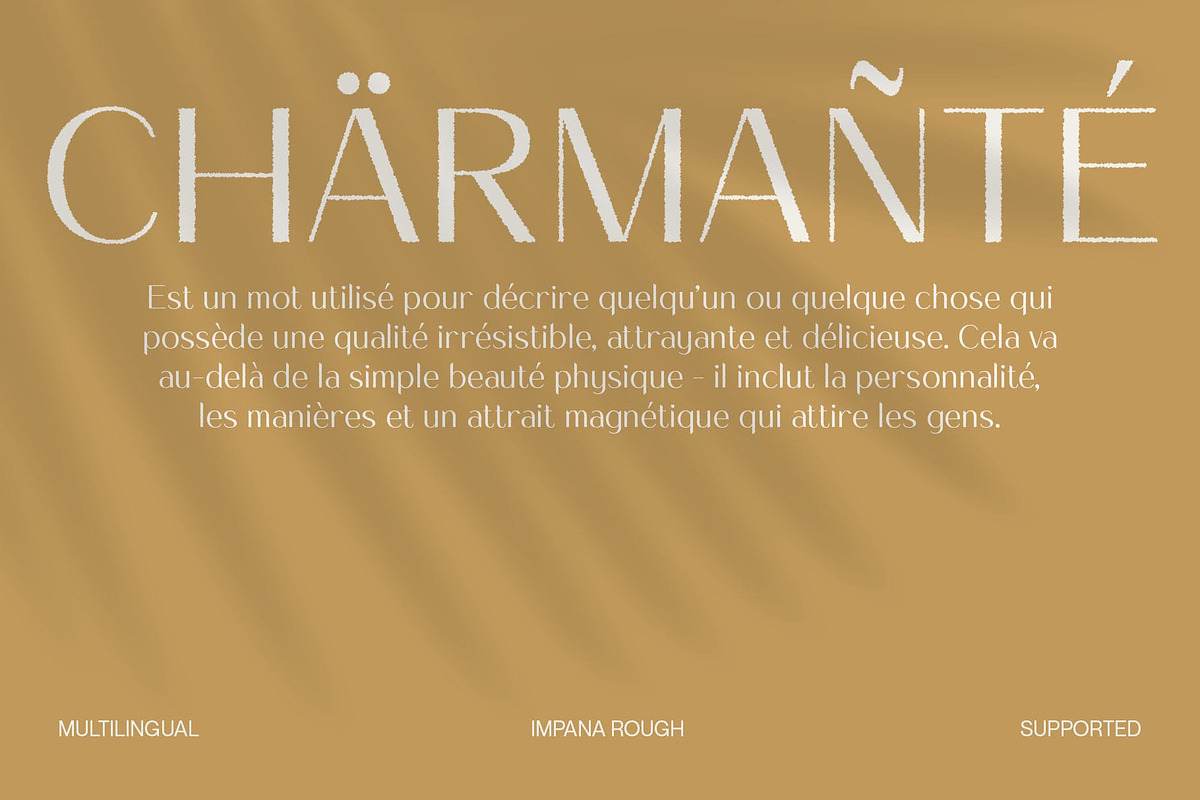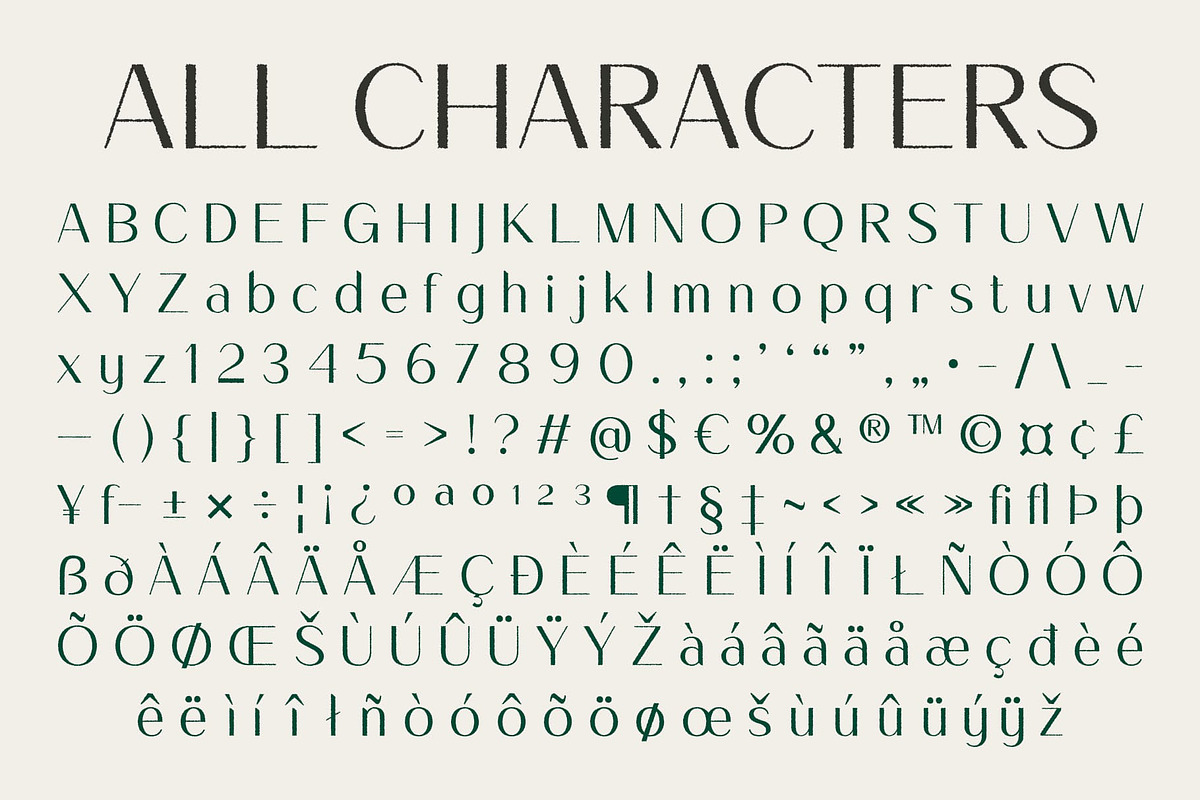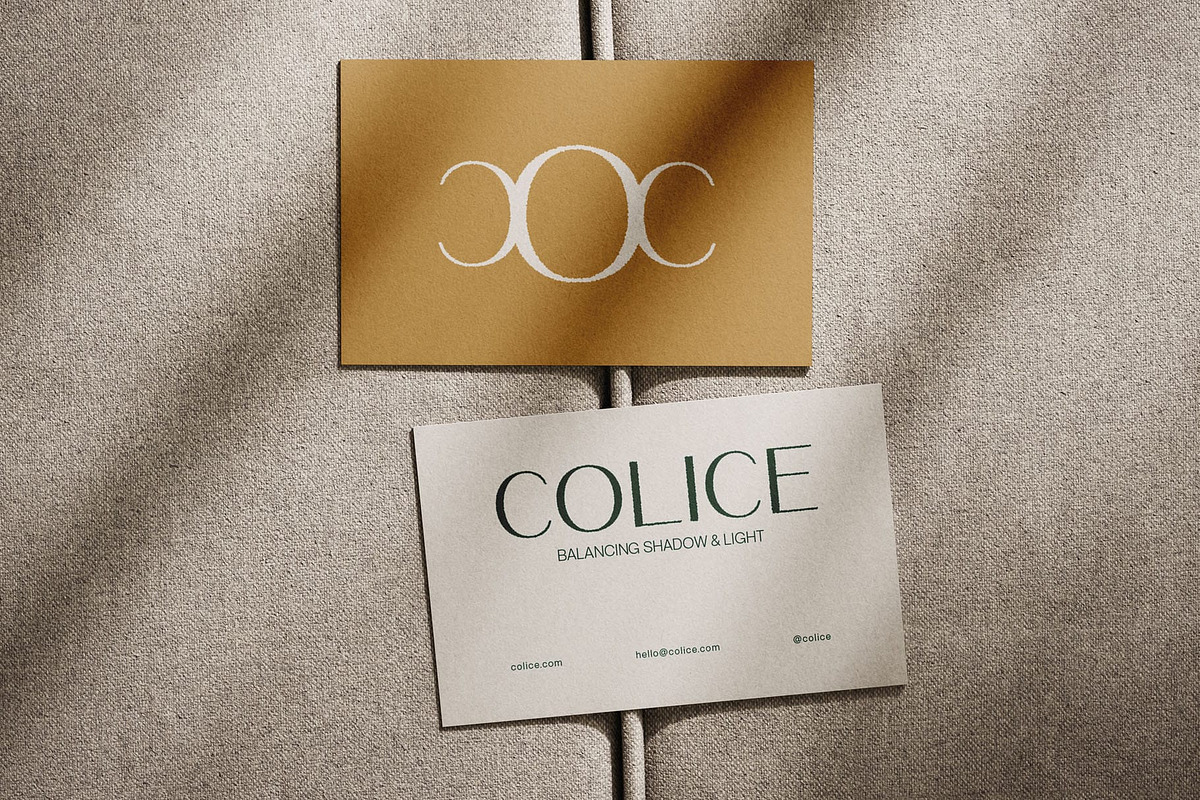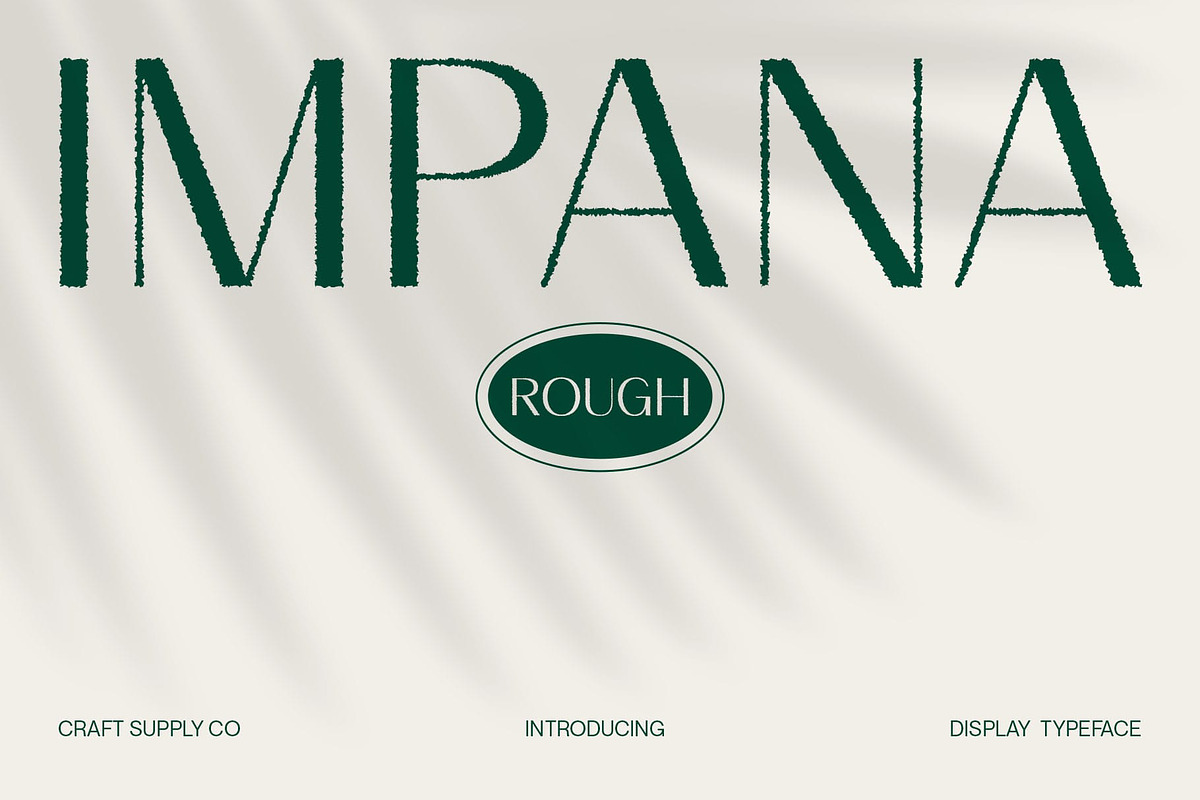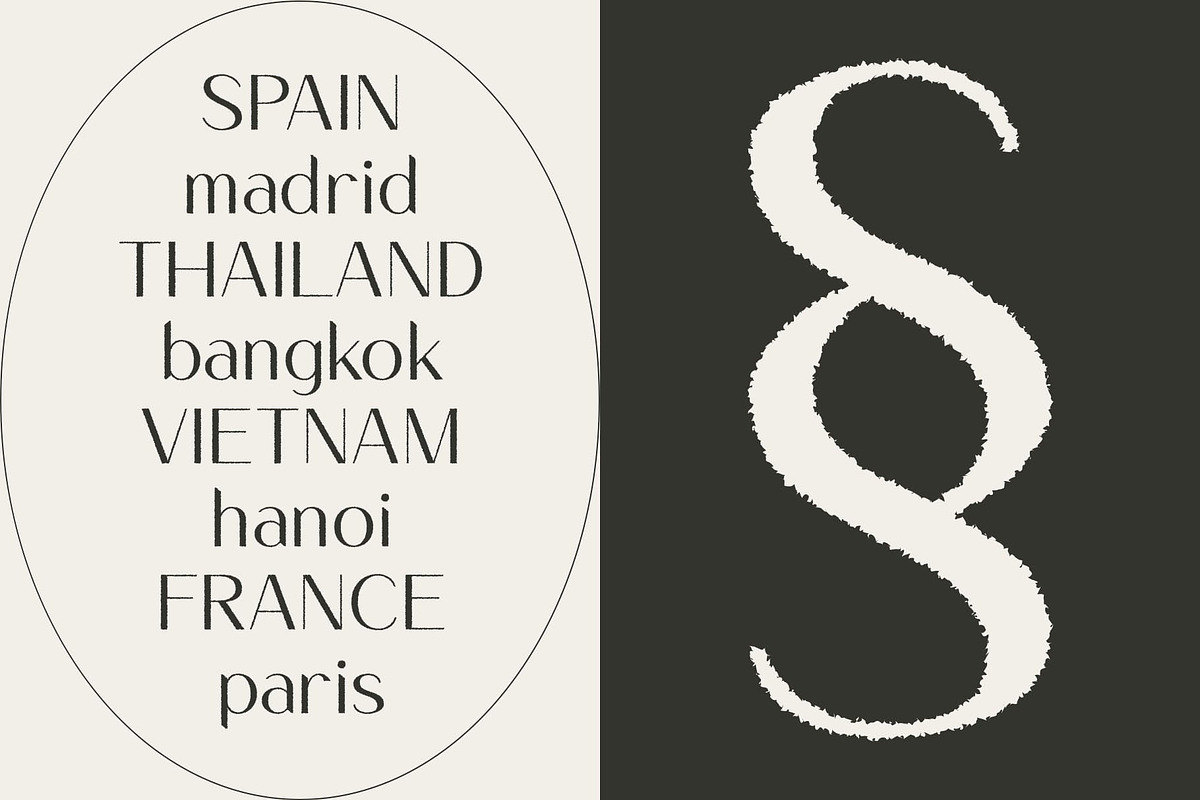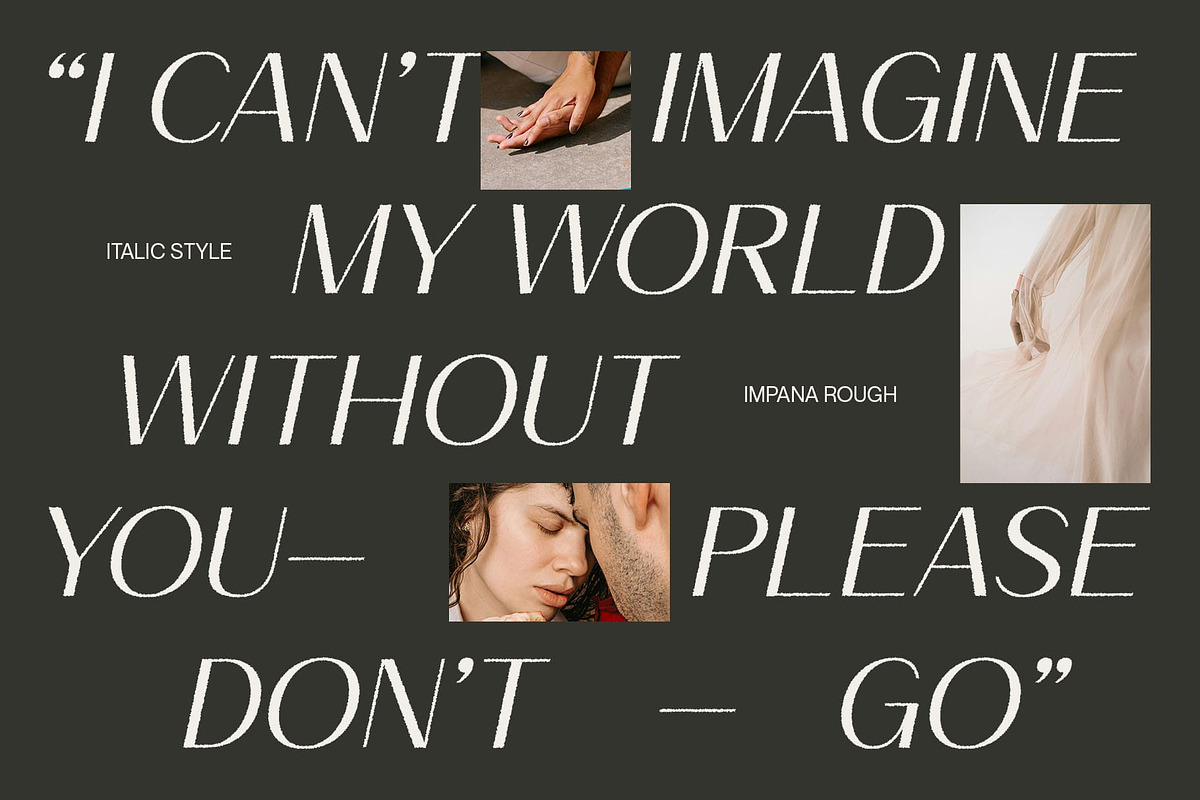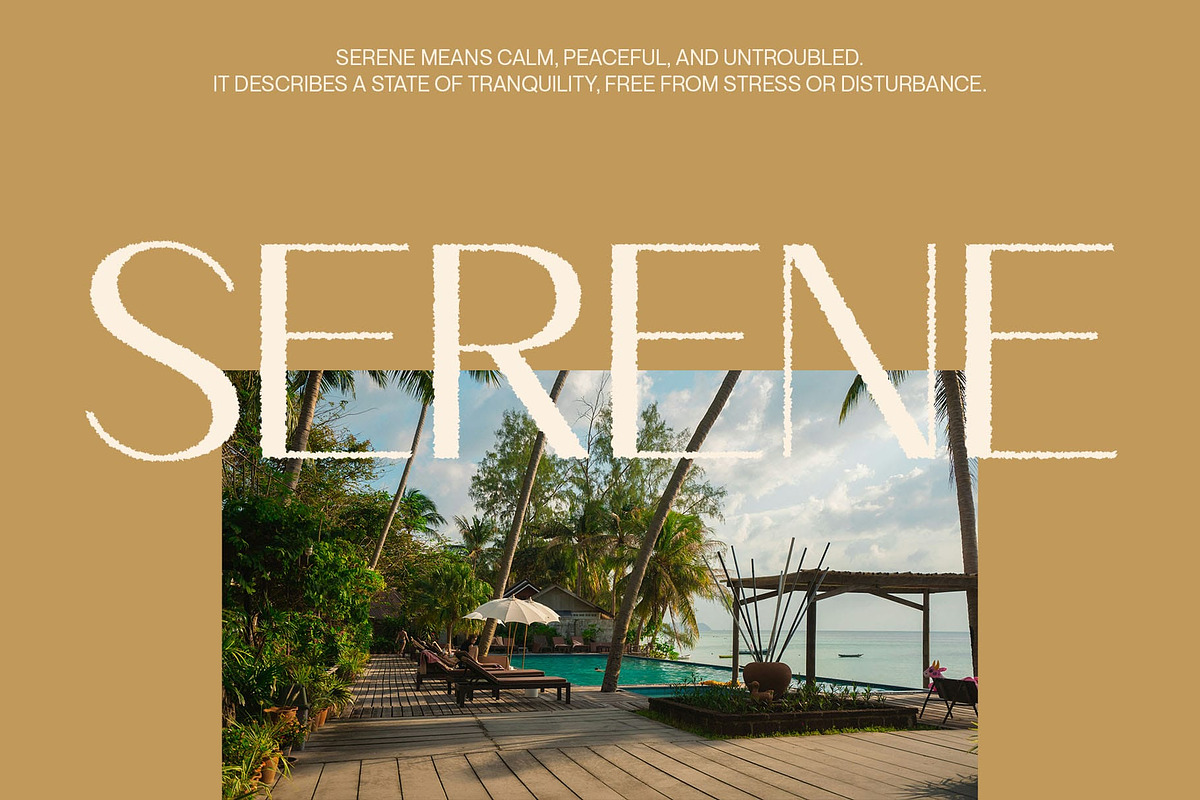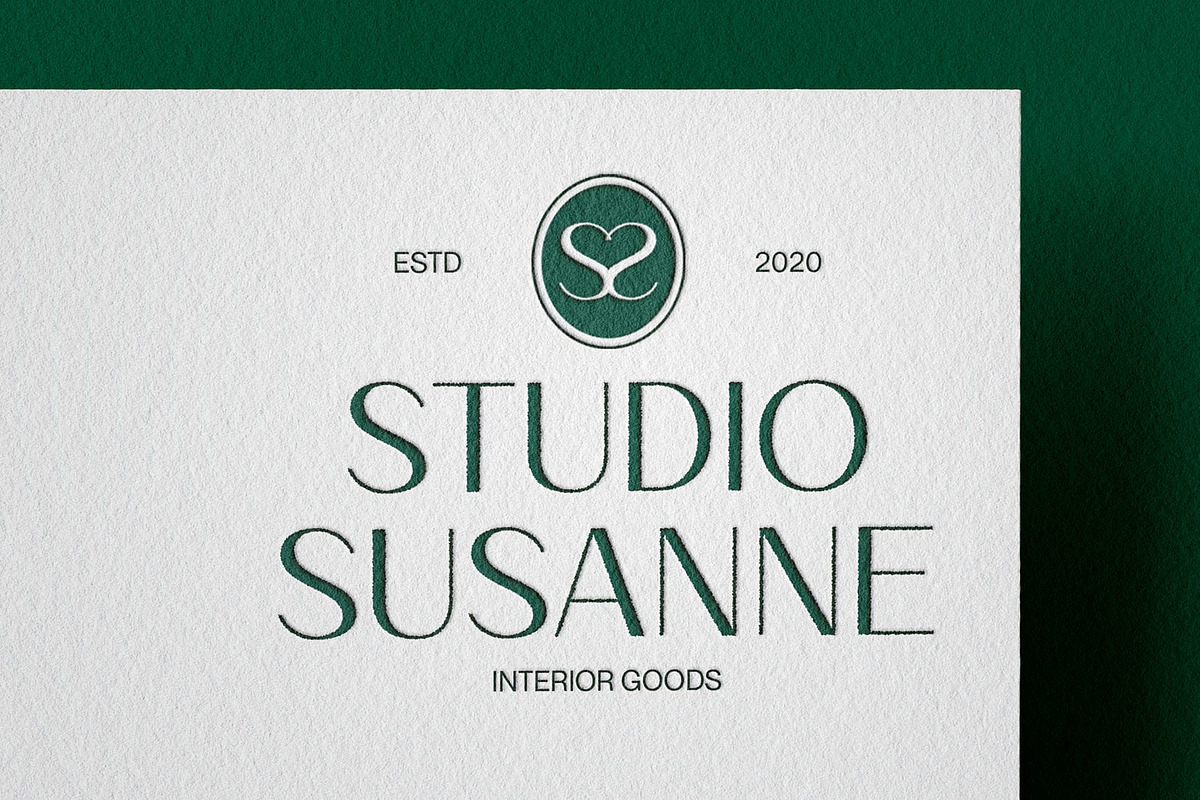
Impana Rough
Impana Rough Font: A Modern Sans-Serif with a Bold Textured Edge
Minimalist Elegance with a Subtle Rough Effect Impana Rough is a modern sans-serif font that merges clean, minimalistic design with a refined textured touch. With its smooth and balanced structure, this font maintains a professional and sophisticated aesthetic, making it perfect for projects that require both clarity and character.
A Bold Yet Refined Appearance Featuring a subtle rough effect, Impana Rough introduces a distinctive yet understated texture, adding a touch of raw authenticity while preserving its modern elegance. This unique balance makes it ideal for designs that aim to be bold yet refined, standing out with a touch of artistic depth.
Perfect for Premium Branding and Editorial Design Designed for high-end branding, editorial layouts, and contemporary visuals, Impana Rough thrives in projects that demand aesthetic sophistication with a slight rugged edge. Whether used for logos, headlines, packaging, or advertising, its textured details provide a modern yet timeless charm.
Versatile for a Range of Design Applications Impana Rough seamlessly adapts to various design needs, from corporate branding to creative advertising. Its elegant yet edgy personality makes it an excellent choice for fashion labels, lifestyle brands, digital media, and print publications, ensuring a confident and impactful visual presence.
- Impana Rough Regular
- Impana Rough Italic